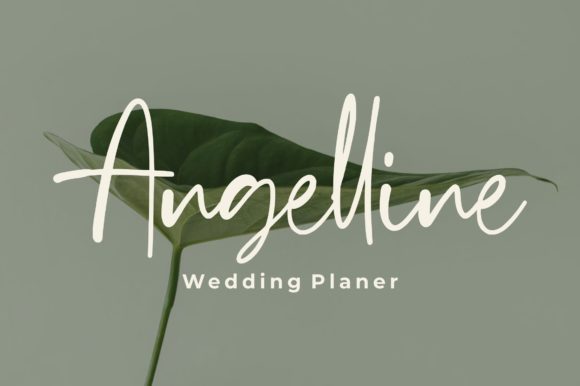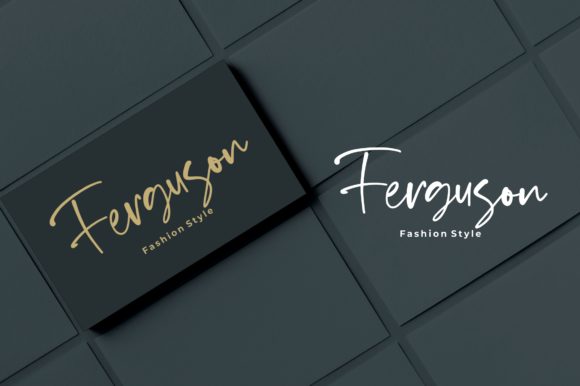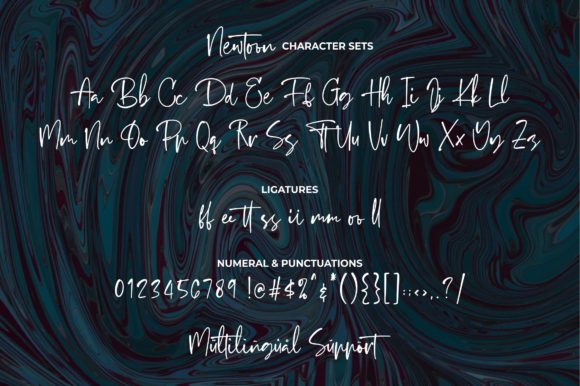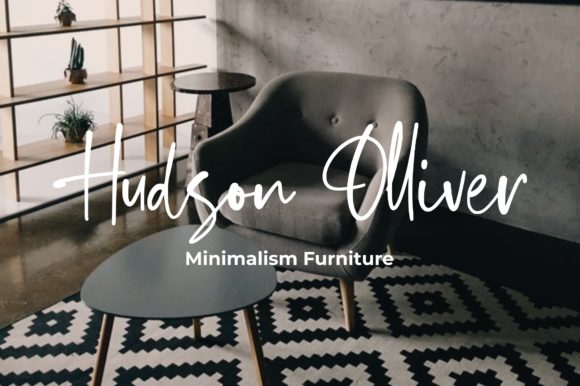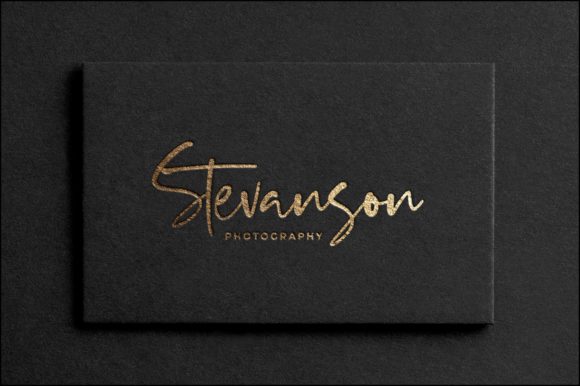
Newtoon Font
About Newtoon Font
Newtoon is a modern signature font. This stunning handwritten font is a stylish homage to classic calligraphy. It features a varying baseline, smooth lines, gorgeous glyphs and stunning alternates. Newtoon is the perfect font for making original and outstanding designs.